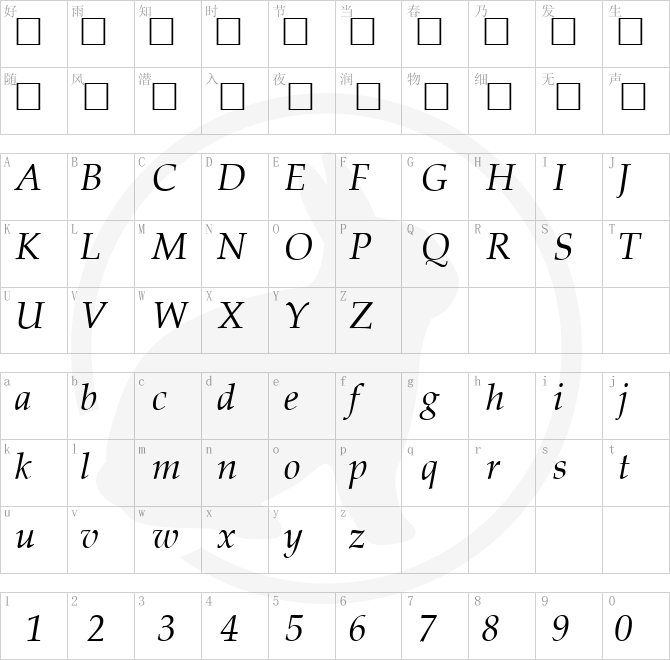
QTPalatine-Italic.ttf is a very beautiful artistic font, QTPalatine-Italic.ttf is widely used in the design and printing of various books and pictures,QTPalatine-Italic.ttf has a strong visual impact,QTPalatine-Italic.ttf is a commonly used font in newspapers, magazines and books, and is used in posters, e-commerce Poster design, store design, logo design, font design and other fields.QTPalatine-Italic.